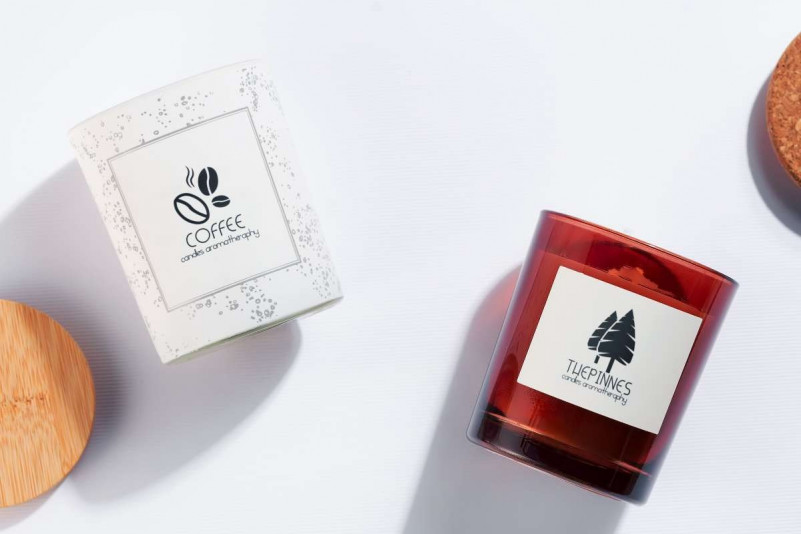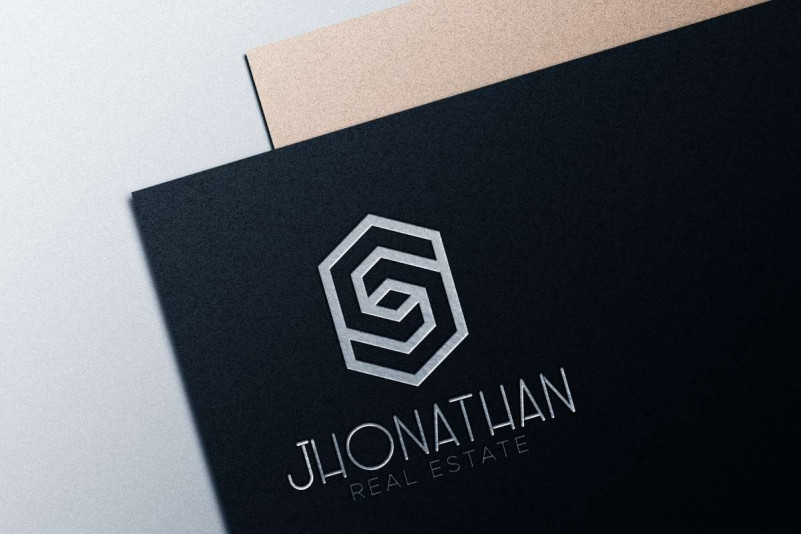
Harumi Sans Serif Font
Harumi Font is a sans serif display font with unique style characters inspired from musician. It has a unique style that will bring the flawless and modern style to the design. It will works for games, technology, events, musician, artist, and any modern things. Harumi Font includes full set of Uppercase and Lowercase Basic Characters, Numerals and Punctuation. The font also comes with threes style options : Regular, bold and Italic. It will be great for many projects including: brandings, poster, tittle, products, promotions etc.